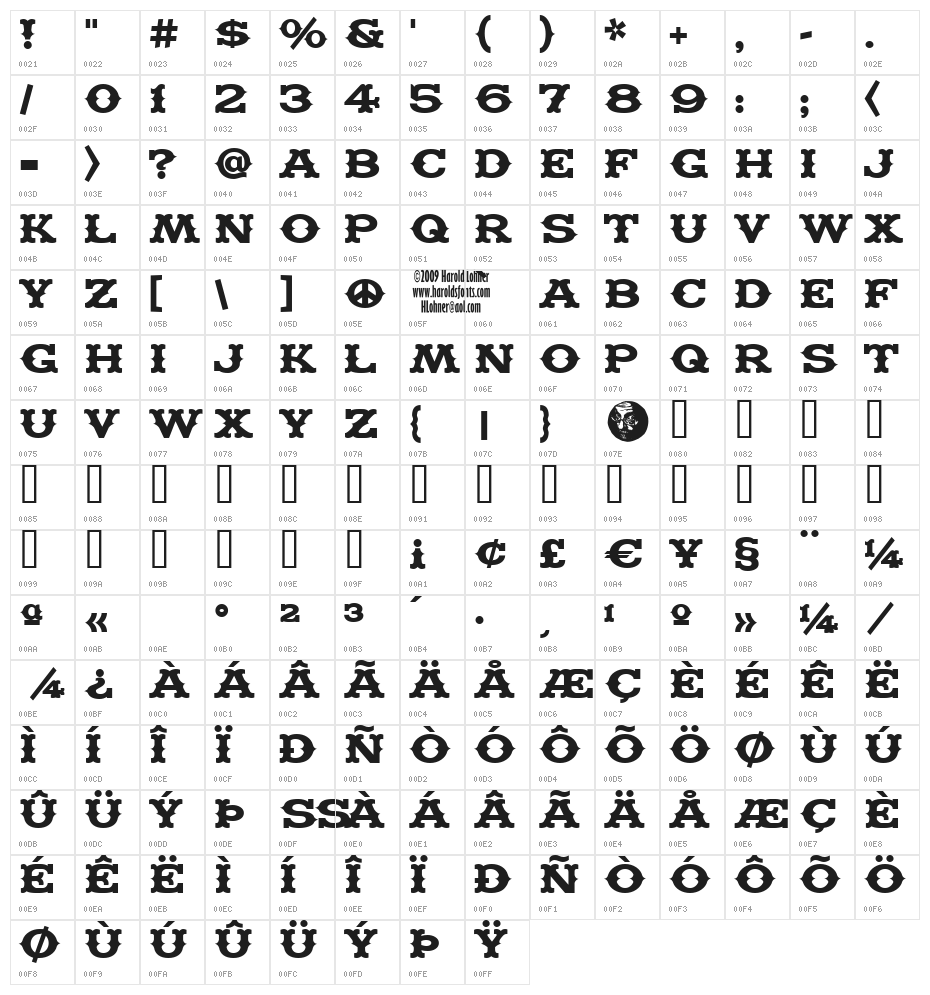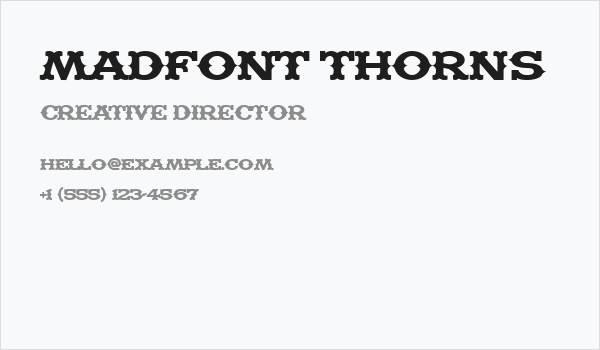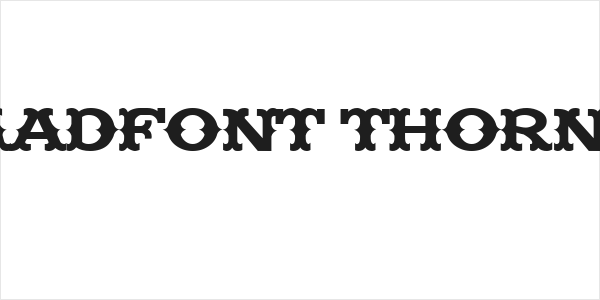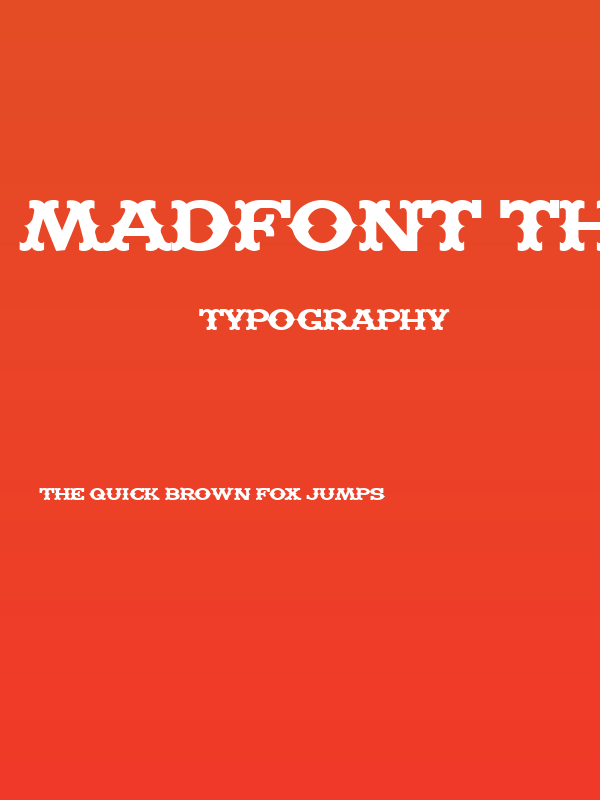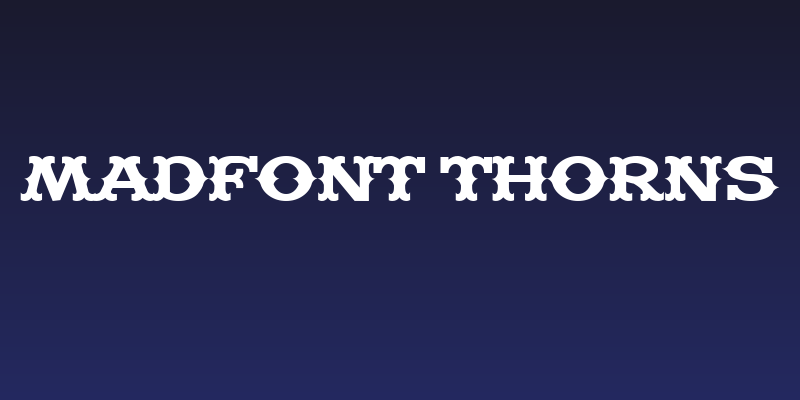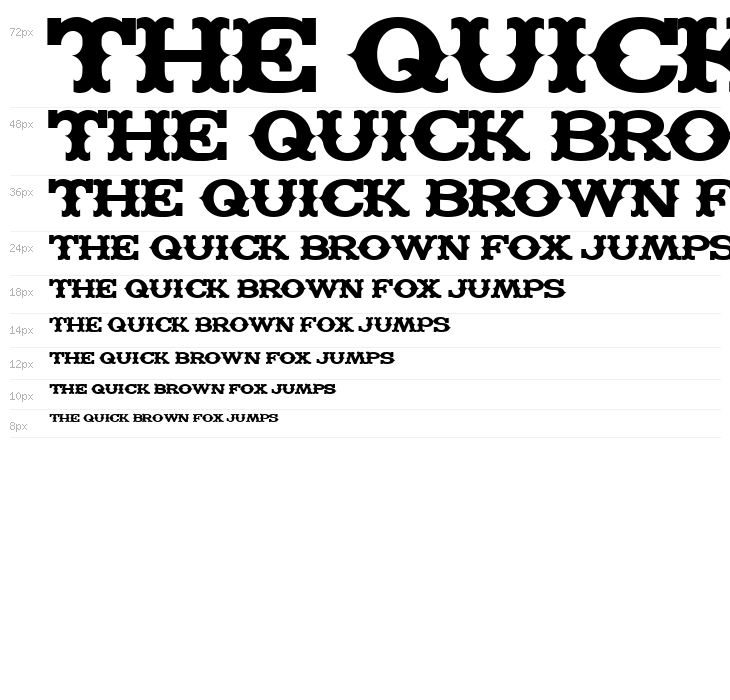
Madfont Thorns Font
Madfont Thorns Description
This font features a bold, decorative style with thorn-like embellishments on each character, creating a unique and edgy appearance. The uppercase and lowercase letters maintain a consistent design, with sharp, pointed elements that give the font a distinct, aggressive look. The numbers and special characters follow the same theme, ensuring a cohesive visual experience across all text elements. The font's thick strokes and intricate details make it stand out, ideal for projects that require a strong visual impact.
| Proposed Projects | Ideal for album covers, posters, video game titles, or any project needing a bold, edgy aesthetic. |